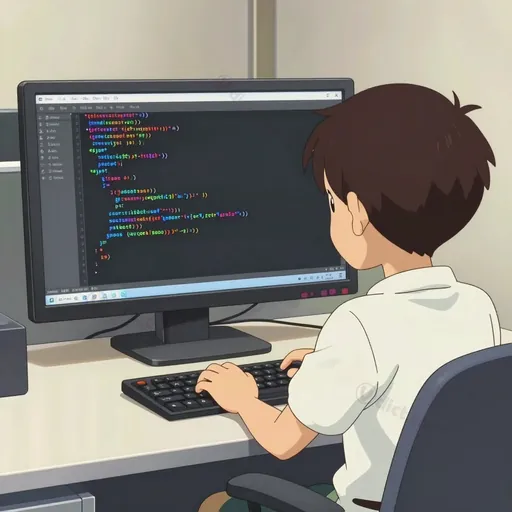
constant-width font
Noun: A constant-width font is a typeface in which every character occupies the same amount of horizontal space. This means letters like "i" and "w" are given identical widths, unlike in proportional fonts where widths vary. This style is reminiscent of the output from traditional typewriters or early computer terminals.
A constant-width font is primarily used in contexts where vertical alignment of text is critical for readability and structure. * Programming and Coding: Used in code editors and terminals because it ensures that indentation, brackets, and symbols align perfectly, making the code's structure clear. * Data Tables and ASCII Art: Essential for creating text-based tables, charts, or drawings where characters must line up in precise columns. * Technical Documentation: Often used to display code snippets, command-line inputs, or file paths within documents.
- "For writing Python scripts, most developers prefer a constant-width font like Courier or Consolas in their editor."
- "The data was presented in plain text using a constant-width font so that all the decimal points would align in the column."
- "To create the diagram, he used a constant-width font to ensure every character occupied the same space on the grid."
- Monospace as a Synonym: The term "monospace font" is a direct and more common synonym for constant-width font. The concept is identical: mono- (one) + space (width).
- Fixed-width vs. Variable-width: In typography, "constant-width" or "fixed-width" is explicitly contrasted with "proportional" or "variable-width" fonts. The choice between them is a fundamental typographic decision based on the text's purpose.
- Monospace Font (n): The most common synonym for constant-width font.
- Fixed-width Font (n): Another exact synonym, emphasizing the unchanging character width.
- Typewriter Font (n): A descriptive term highlighting the historical origin of this font style, though not all monospace fonts are designed to look like typewriter output.
- Proportional Font (n): The antonym; a typeface where character widths vary (e.g., Times New Roman, Arial).
- Monospace font
- Fixed-width font
- Non-proportional font
- "Set in monospace": A directive to format text using a constant-width font.
- Example: "Please set the code examples in monospace to distinguish them from the explanatory prose."
a typeface is which each character is given the same width (as by a typewriter)